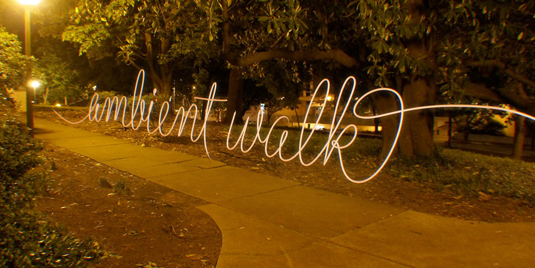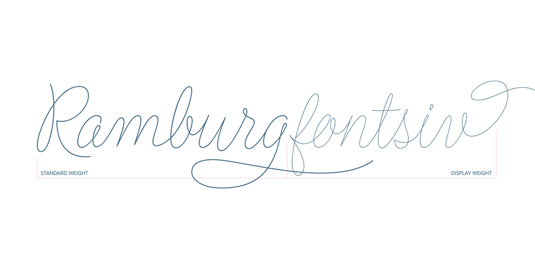
Font of the day: Flirt Script
Every day we showcase the best fonts on the web. Today it's Flirt Script by Neil Summerour.
Flirt Script by Neil Summerour
Type designer and letter artist Neil Summerour is the man behind our font of the day Flirt Script. He comments on his design on Behance: "Young, playful, loopy, flirty. Flirt Script carves out a niche for itself by concentrating on natural writing tendencies and not the simplified mechanics of script-to-font type design."